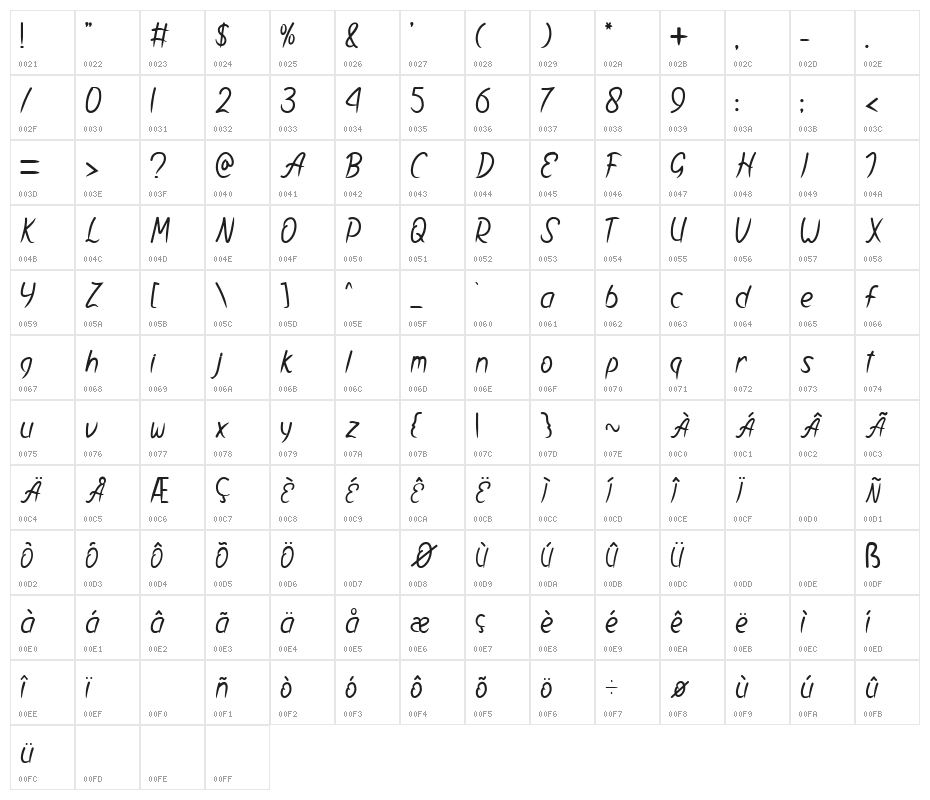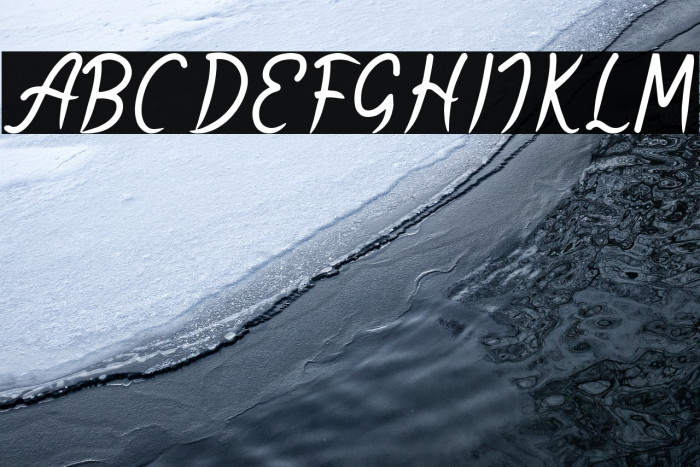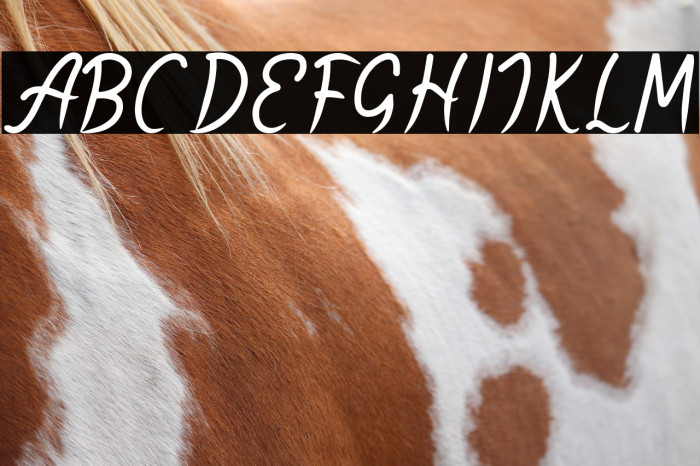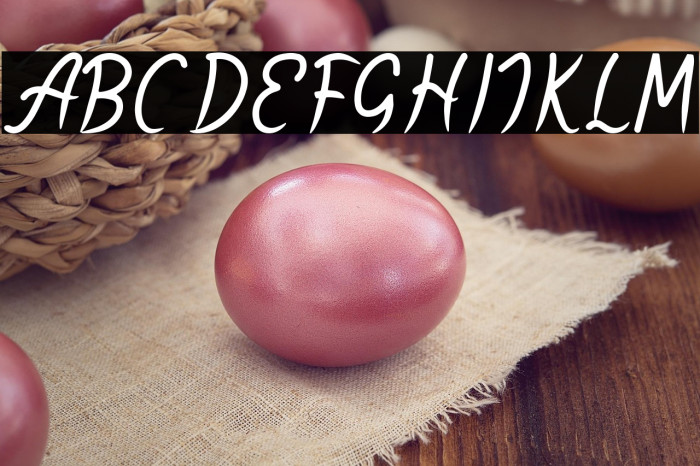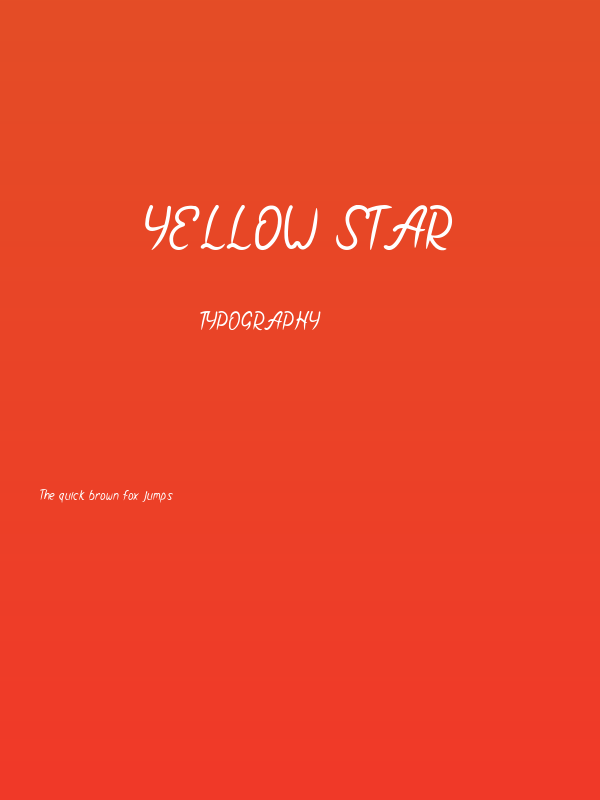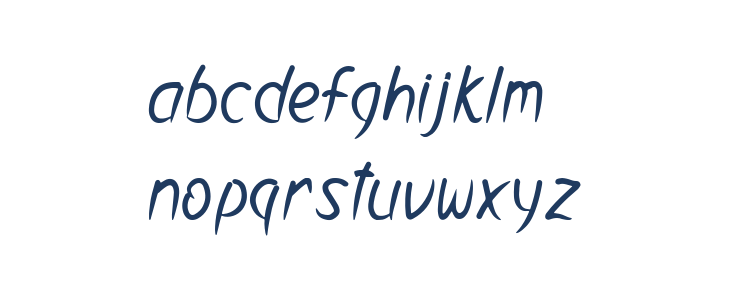
Yellow Star Font
Yellow Star Description
This font features a lively and dynamic script style, characterized by its fluid and cursive letterforms. The strokes are smooth and slightly slanted, giving it a handwritten appearance. Each character is distinct yet harmonizes well with others, creating a cohesive and elegant look. The uppercase letters are bold and prominent, while the lowercase letters maintain a consistent flow. The numerals and special characters are crafted with the same attention to detail, ensuring readability and aesthetic appeal. This font is ideal for projects that require a personal touch or a sense of movement and energy.